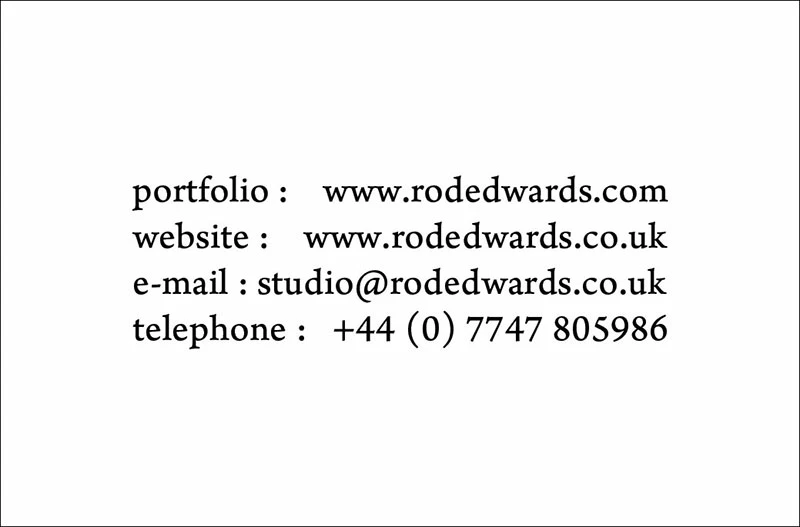
Advice On Choosing A Business Font ?
I'm a photogapher and i'm trying to design a new business card and look to my brand.
At the moment I'm using Adobe Arno Pro font for my main logo which i quite like. It has a traditional almost classical look but with a contemporary twist - see attached pic.
However, I'm not sure i like the look of Arno Pro for the main font text on the reverse of my business card  - see pic attached.
I've also kept all text lower case on rear of card ... is this cool or not ?!
If i keep Arno Pro caption for my main logo font, what other fonts would anyone suggest for the reverse / main type ?
I photograph people, places, architecture, fashion, 360 panoramas and video so i'd kinda like the font to reflect this.
Actually, this is a really nice, clean design! Easy to read and very distinctive.
The only downside of this design is that by putting contact information on the reverse side, you defeat the ability of scanning and storing business card information which many professionals do. You also might consider an actual snail mail address such that someone can mail something to you if necessary.
So you like the font lower case on the reverse too ? Not too 'Times New Roman' y as that's such a common font ?!
Doesn't look anything like Times New Roman! The font has an “edgy” yet classic look.
I personally see nothing wrong with lower-case only on the reverse? Unconventional, yes! But also very clear and distinctive!